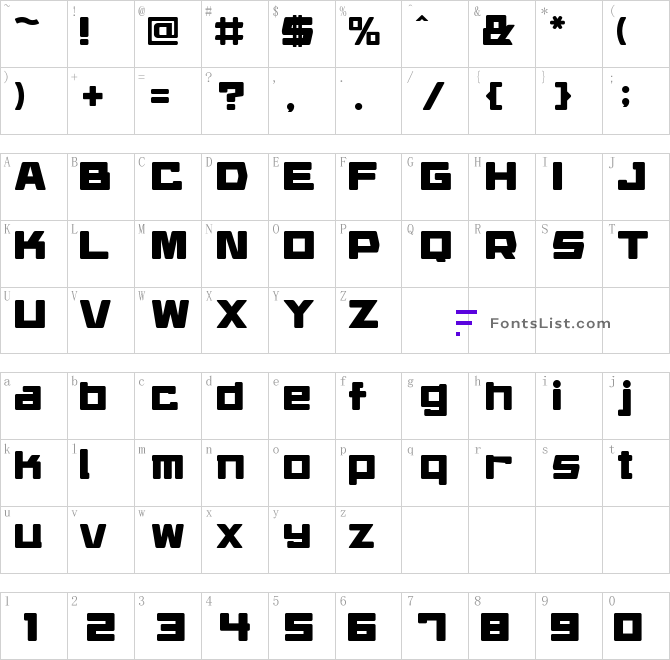
- Font Name:Daidoh Remix Round
Daidoh-Remix-Round.ttf is a very beautiful artistic font, Daidoh-Remix-Round.ttf is widely used in the design and printing of various books and pictures,Daidoh-Remix-Round.ttf has a strong visual impact,Daidoh-Remix-Round.ttf is a commonly used font in newspapers, magazines and books, and is used in posters, e-commerce Poster design, store design, logo design, font design and other fields.Daidoh-Remix-Round.